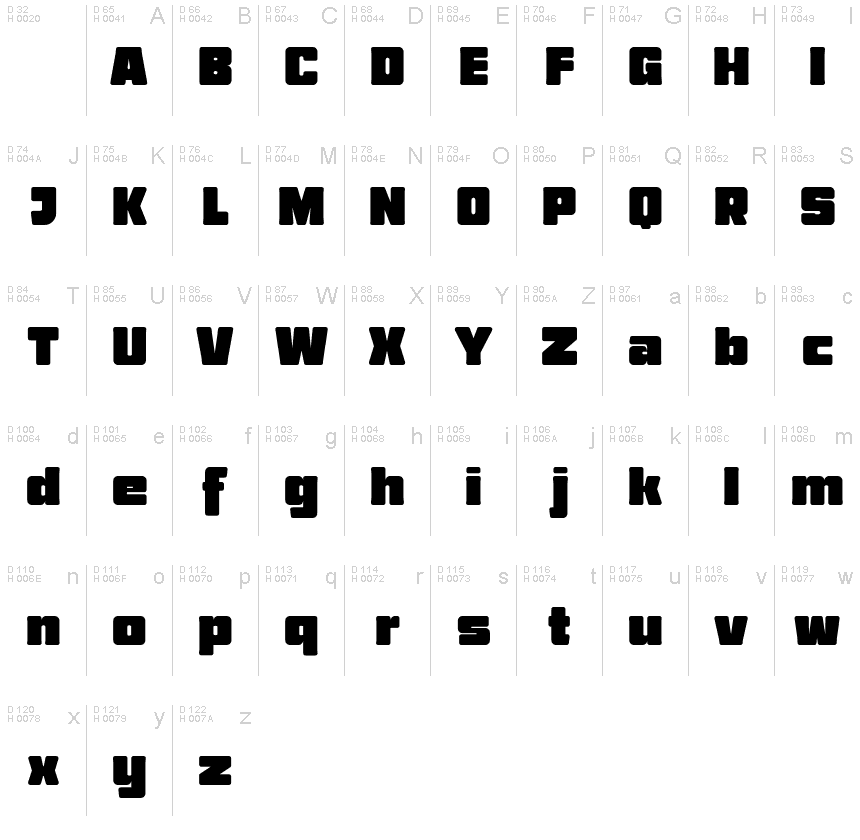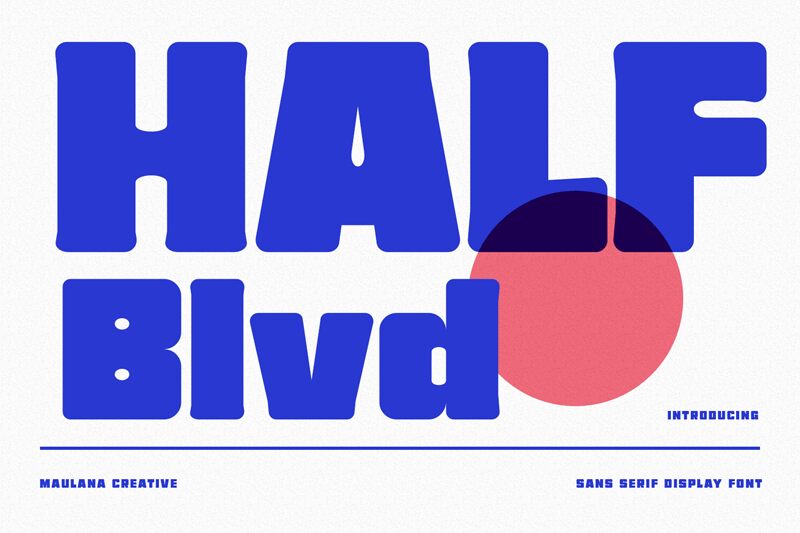
Half Blvd Free Regular
Half Blvd, designed by Maulana Creative, is a captivating and bold sans serif font that demands attention. With its expanded width and extra-bold weight, Half Blvd exudes confidence and modernity. This versatile typeface is perfect for a wide range of projects, from eye-catching headlines on magazine covers to sleek logos for tech startups. Its clean lines and distinctive character make it an ideal choice for fashion editorials, urban-themed posters, or even contemporary website designs. Elevate your designs with Half Blvd's powerful presence and leave a lasting impression on your audience.